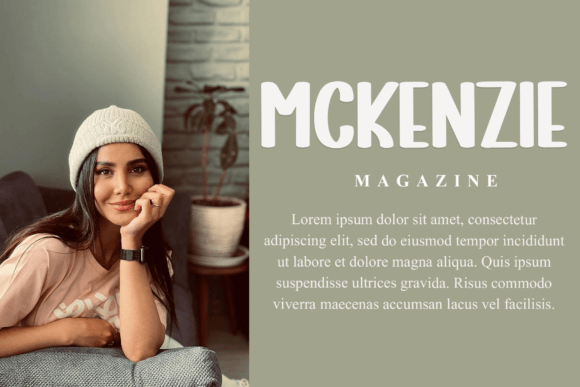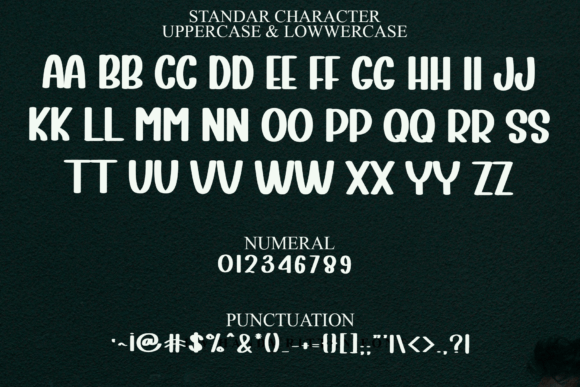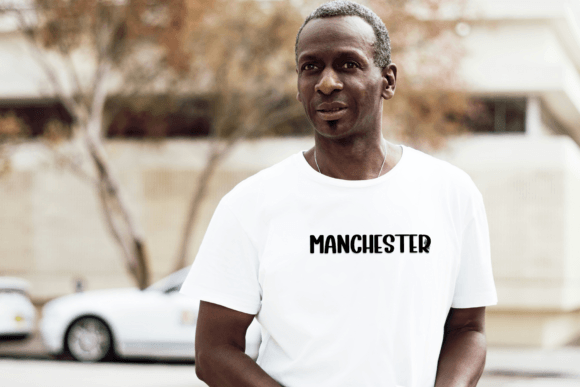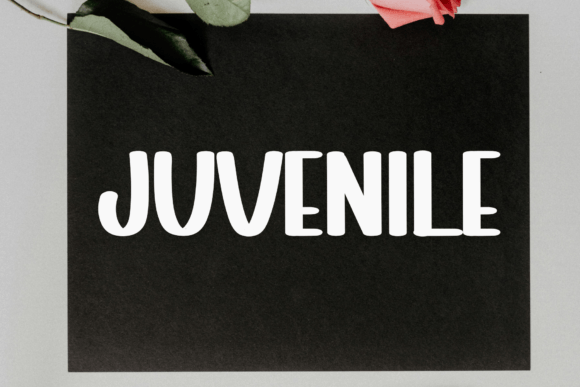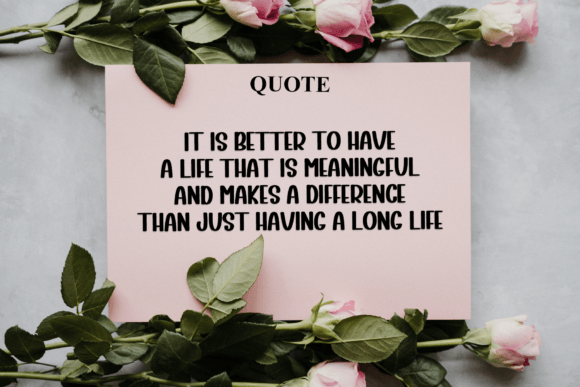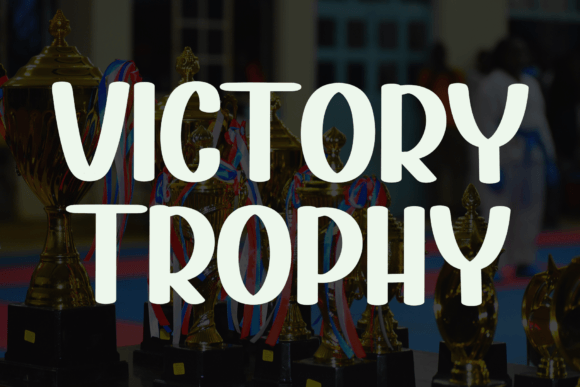
Introducing Championship Font: The Ultimate Holiday Typeface
Are you looking for a font that embodies the spirit of the holiday season? Do you want to add a touch of charm and whimsy to your designs? Look no further than Championship Font, a festive and happy typeface that’s perfect for greeting cards, gift labels, and holiday-themed projects.
A Festive and Happy Typeface
Championship Font is a unique and decorative typeface that’s designed to capture the essence of the holiday season. With its intricate details and playful flair, this font is sure to bring a smile to anyone’s face. Whether you’re designing a holiday greeting card, a gift label, or a festive poster, Championship Font is the perfect choice.
Championship Font is specifically designed for holiday-themed projects, making it the perfect choice for designers and crafters who want to add a touch of festive cheer to their work. From Christmas cards to Hanukkah greetings, this font is sure to bring a cheerful and nostalgic atmosphere to your words.
One of the best things about Championship Font is that it’s PUA (Private Use Area) coded, which means you can access all the amazing glyphs and ligatures easily. This makes it simple to add decorative elements and unique flair to your designs, without having to worry about complicated font editing software.
What You Can Create with Championship Font
With Championship Font, the possibilities are endless. Here are just a few ideas to get you started:
- Holiday greeting cards: Create beautiful and festive greeting cards for Christmas, Hanukkah, or any other holiday.
- Gift labels: Add a touch of charm to your gift labels with Championship Font’s decorative elements and unique flair.
- Festive posters: Create eye-catching posters for holiday events, sales, or promotions.
- Social media graphics: Add a touch of festive cheer to your social media graphics with Championship Font.
Why Choose Championship Font?
So why choose Championship Font over other holiday-themed fonts? Here are just a few reasons:
- Unique and decorative: Championship Font is a one-of-a-kind typeface that’s sure to stand out from the crowd.
- Easy to use: With PUA coding, you can access all the amazing glyphs and ligatures easily.
- Festive and happy: Championship Font is designed to capture the spirit of the holiday season, making it perfect for holiday-themed projects.
Tips for Using Championship Font
Here are a few tips for using Championship Font in your designs:
- Experiment with different colors: Championship Font looks great in a variety of colors, from traditional holiday colors like red and green to more modern colors like blue and purple.
- Mix and match: Don’t be afraid to mix and match Championship Font with other fonts to create a unique and eye-catching design.
- Play with decorative elements: Championship Font has a range of decorative elements and ligatures that you can use to add a touch of whimsy to your designs.
Championship Font is a festive and happy typeface that’s perfect for holiday-themed projects. With its decorative elements and unique flair, this font is sure to bring a touch of charm and whimsy to your designs. Whether you’re a designer or a crafter, Championship Font is a great choice for anyone looking to add a touch of festive cheer to their work. So why wait? Download Championship Font today and start creating your own holiday-themed masterpieces!